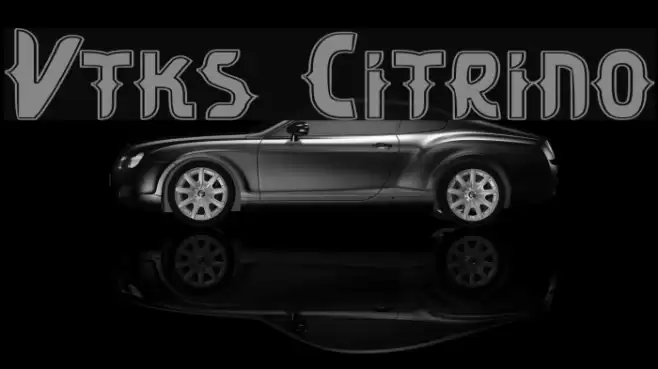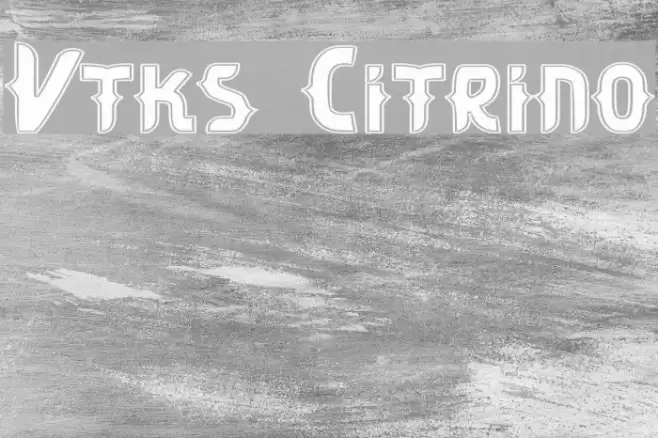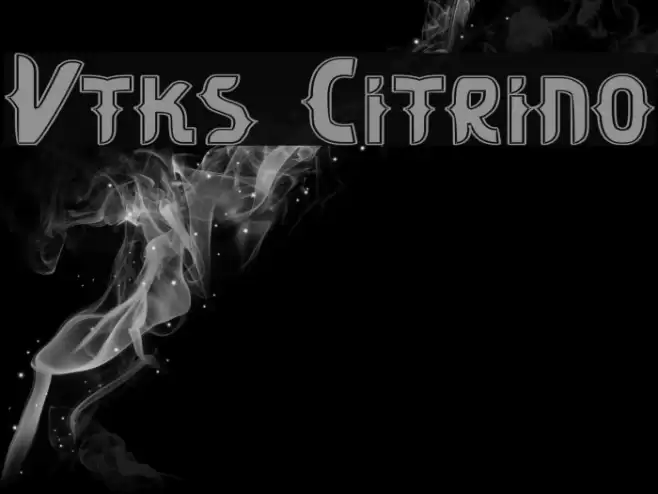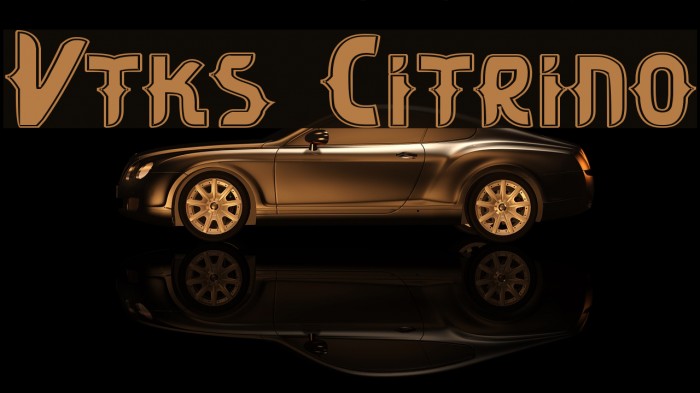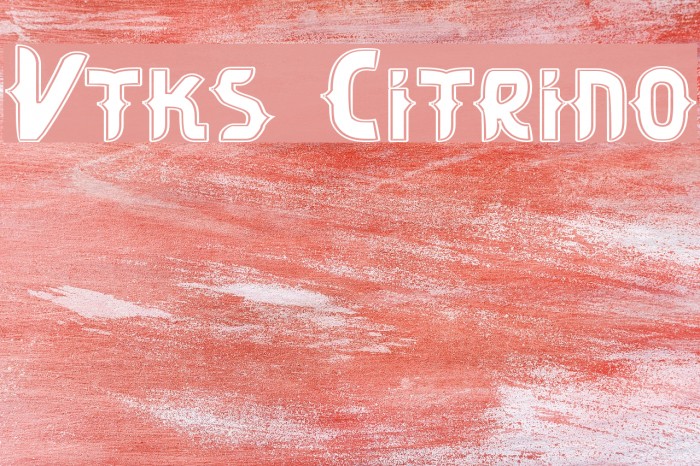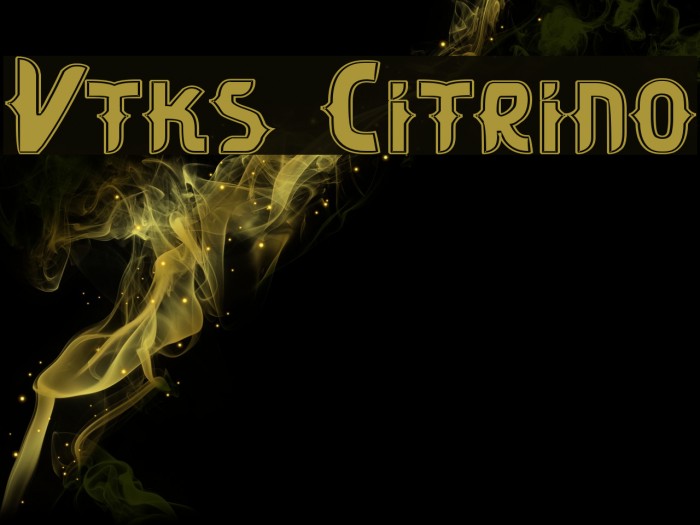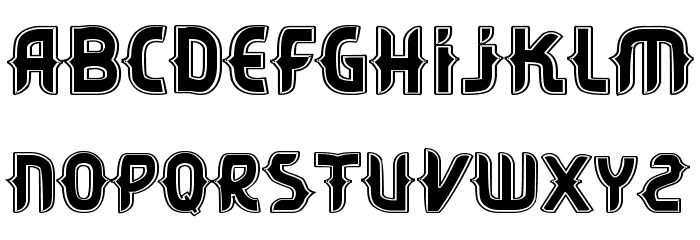
Vtks Citrino Font
Vtks Citrino Description
This font features a bold, decorative style with a distinct outline that gives it a three-dimensional appearance. The characters are uppercase, with a strong geometric influence, characterized by sharp angles and straight lines. The design is reminiscent of vintage signage or retro posters, offering a sense of nostalgia while maintaining a modern edge. The font's unique style makes it stand out, ideal for projects that require a bold statement. Its high contrast between the thick outlines and the inner spaces enhances readability while adding a dramatic flair.
A bold, decorative font with a vintage, three-dimensional style from Uncategorized fonts.
- Proposed Projects: Ideal for retro-themed posters, vintage signage, logos, and branding materials that require a bold and eye-catching typeface.
- Overall Style: Vintage